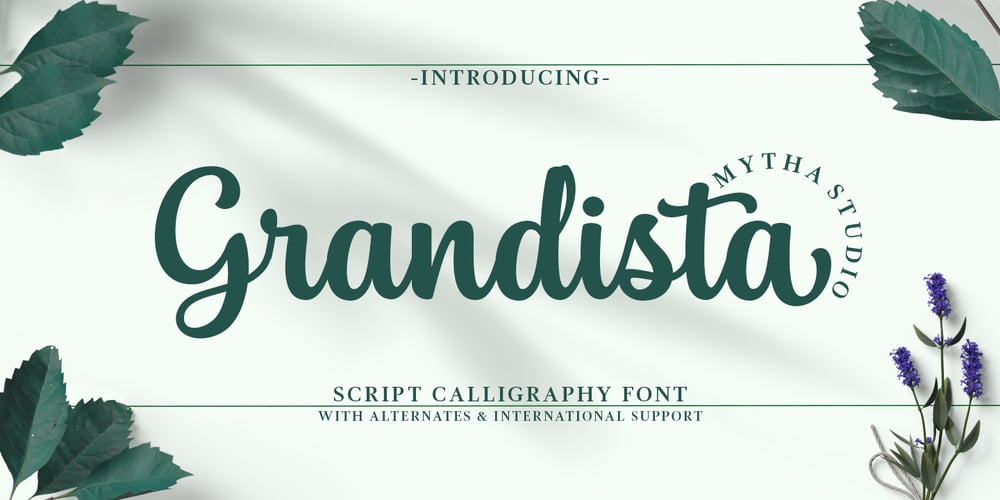
Grandista Font Family was designed by Miftahul Jannah and published by Mytha Studio. Grandista contains 1 styles and family package options. Grandista is a modern script that is fresh and charming, and based on original handwriten styling. It is perfect for any application where you want the design to look original and full of personality including for logos, signature, wedding invitations, t-shirts, letterhead, signage, labels, news, posters, badges, packaging, cards, titles, blogs and more.When it comes to OpenType features, Grandista has swash and alternatives, as well as several ligatures to spur your creativity. Grandista will surely attract attention and arouse excitement and pleasure in making your project.Cheers,Mytha Studio